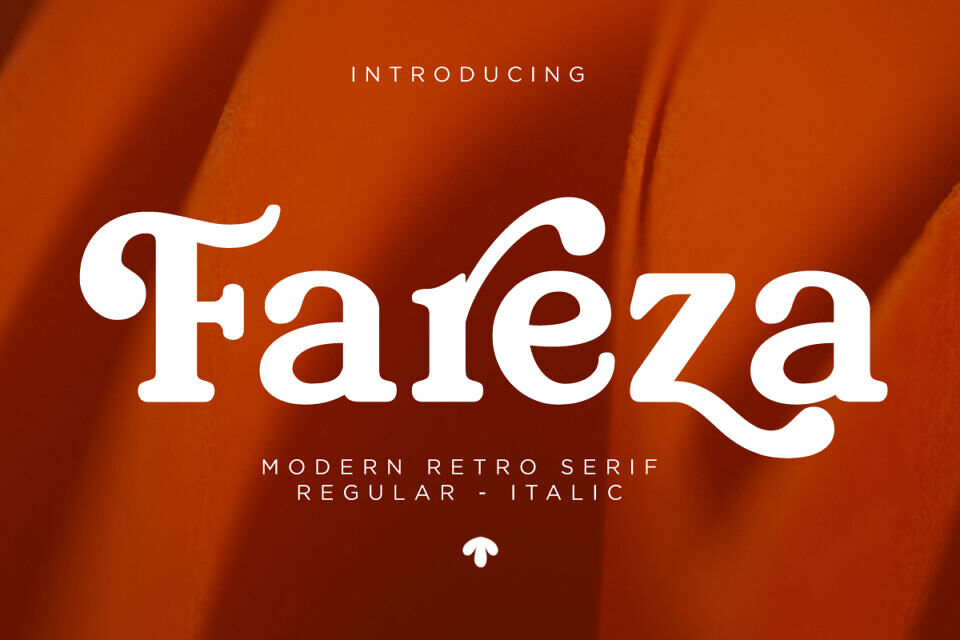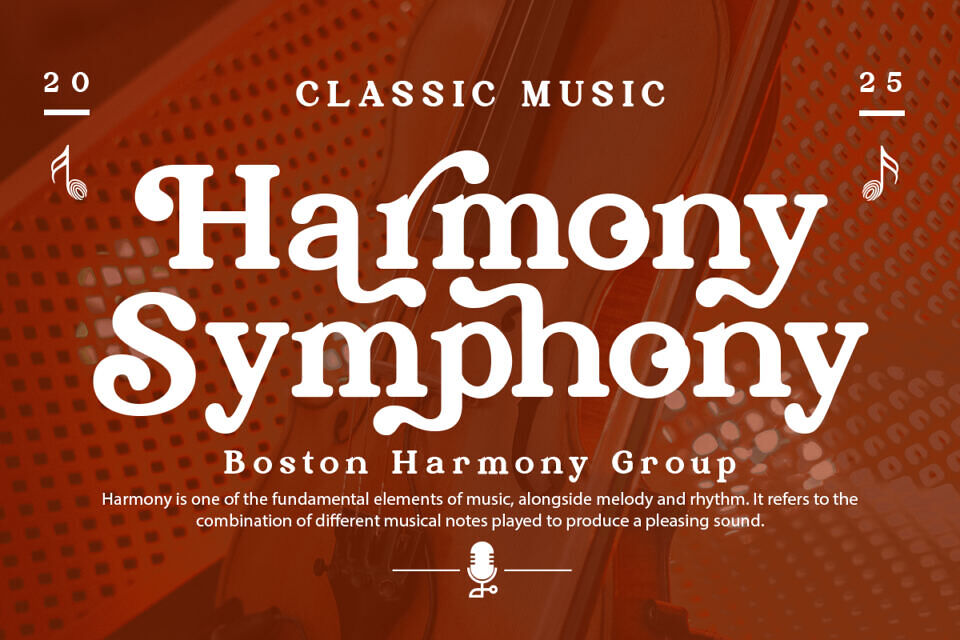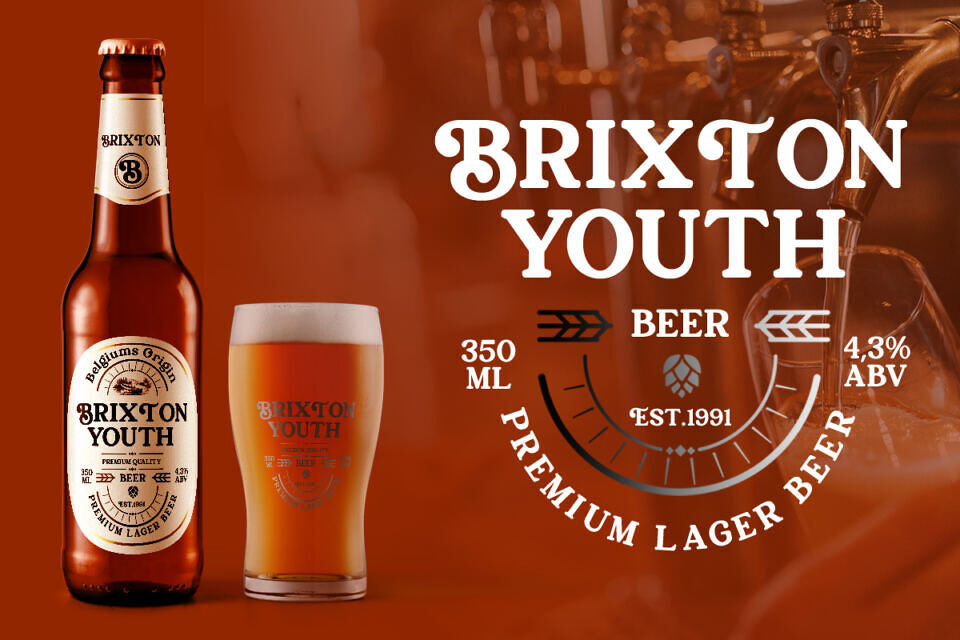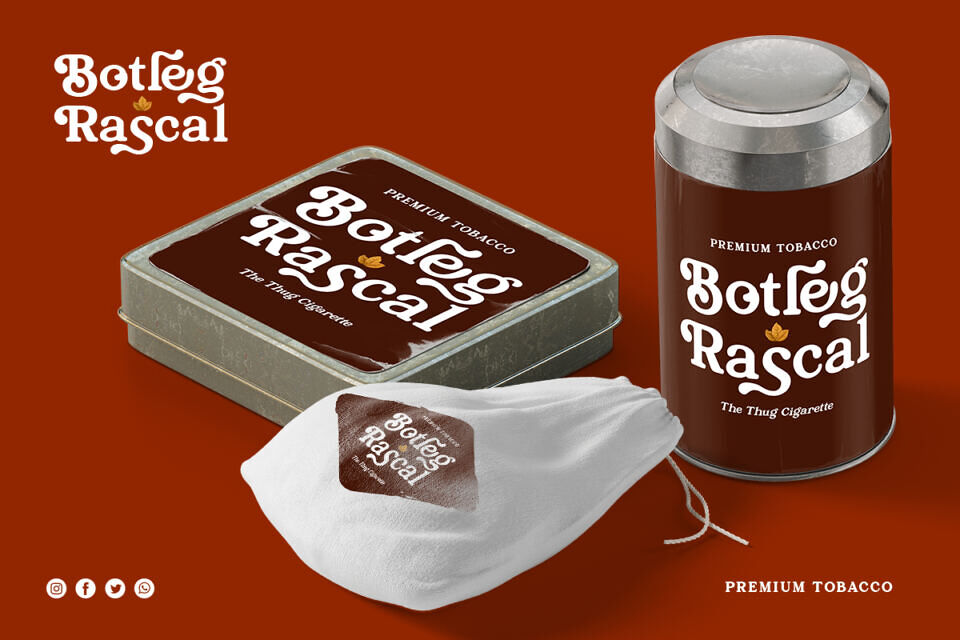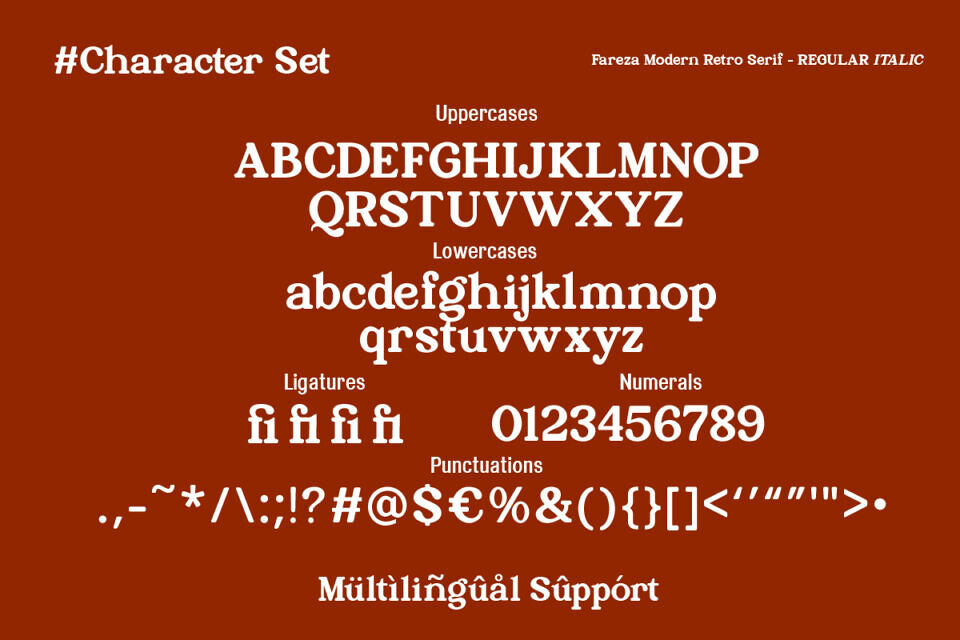
Fareza Font
Fareza is a stylish modern retro serif font that combines vintage elegance with a fresh contemporary touch. With bold curves, unique serifs, and smooth letterforms, it brings a timeless charm to any design.
Perfect for logos, posters, packaging, book covers, and headlines, Fareza adds a bold yet classy personality to your work. Perfect for Branding, Editorial Design, Vintage Logos, Packaging, Invitations, and more.